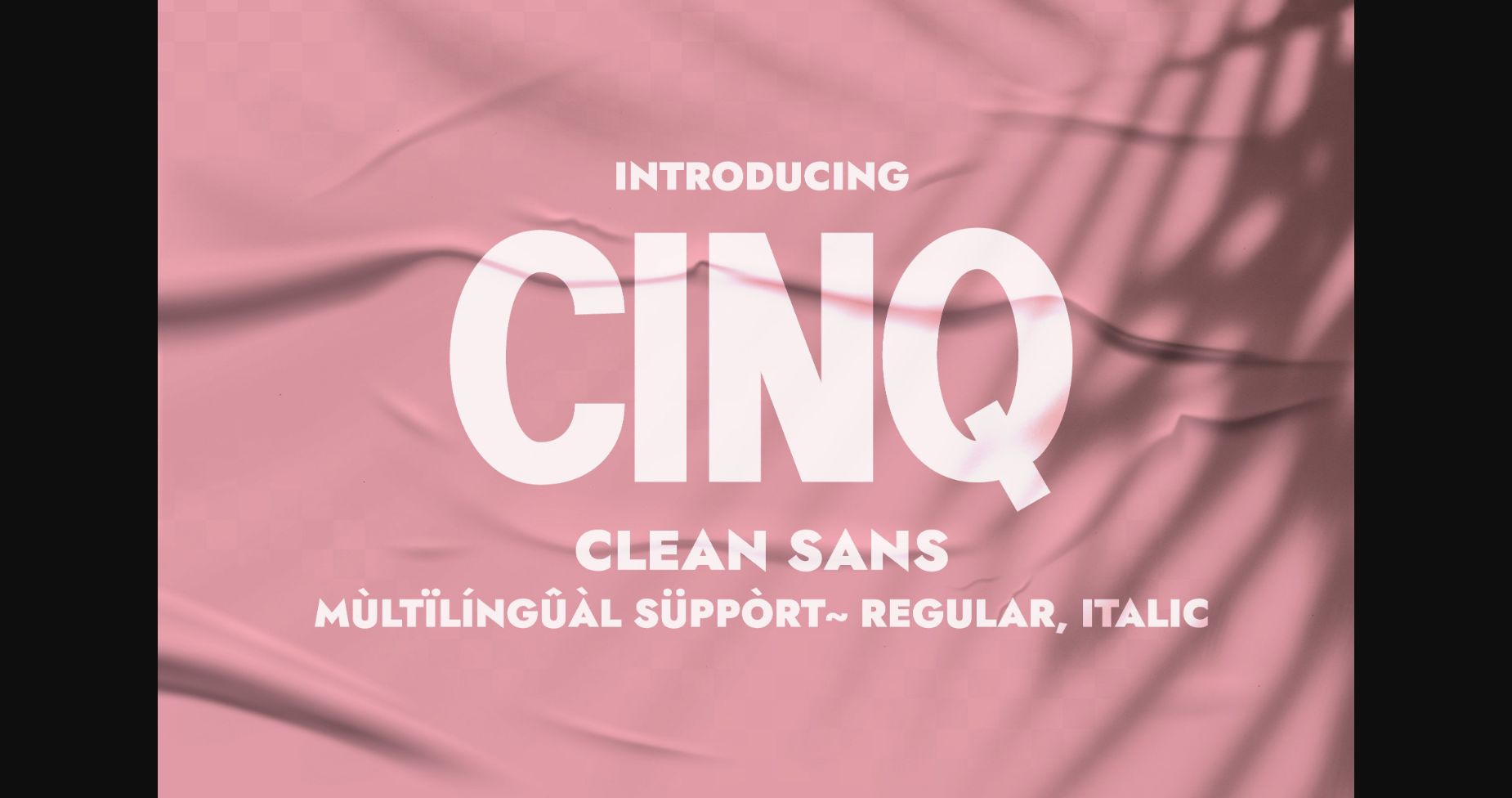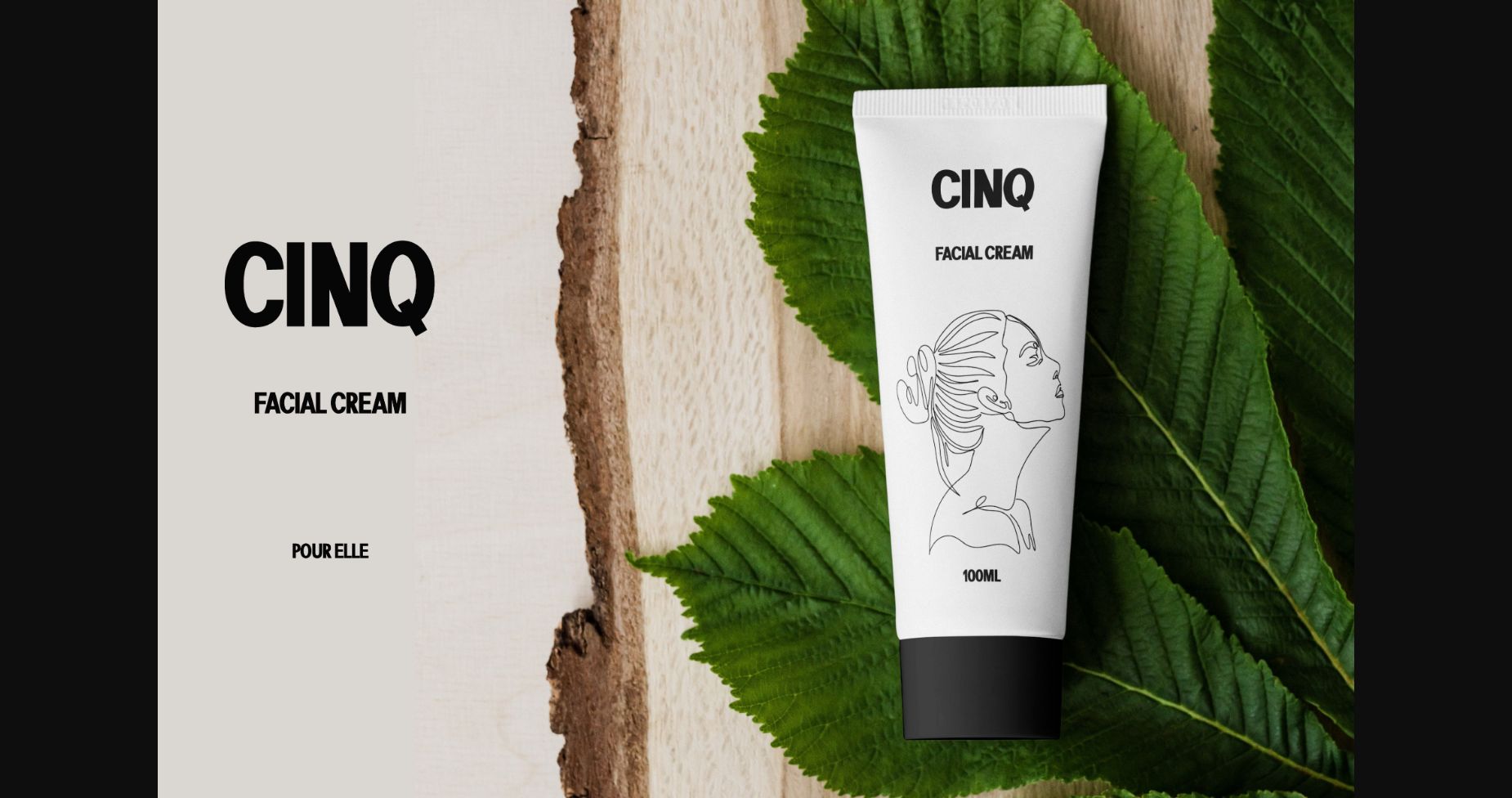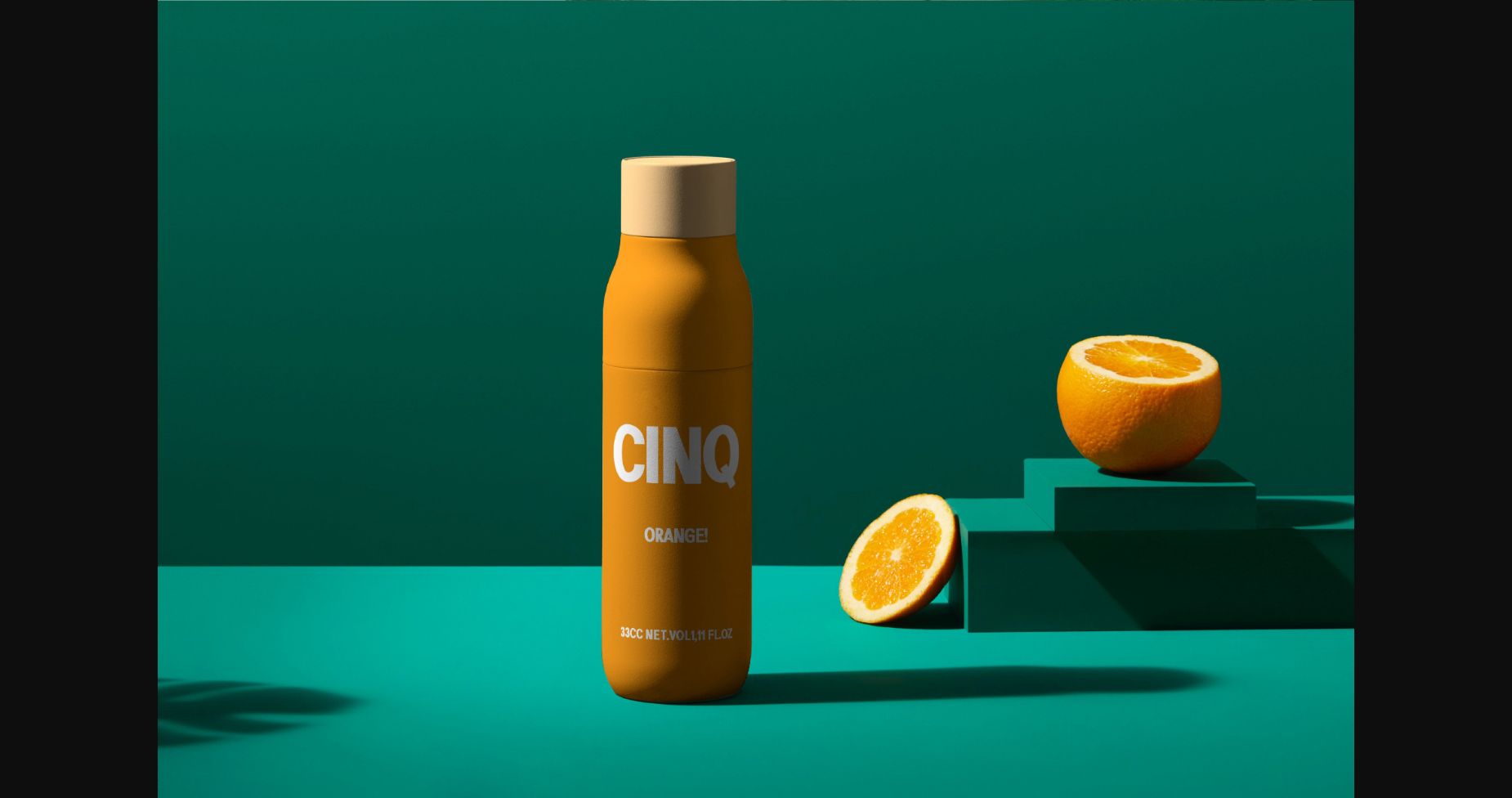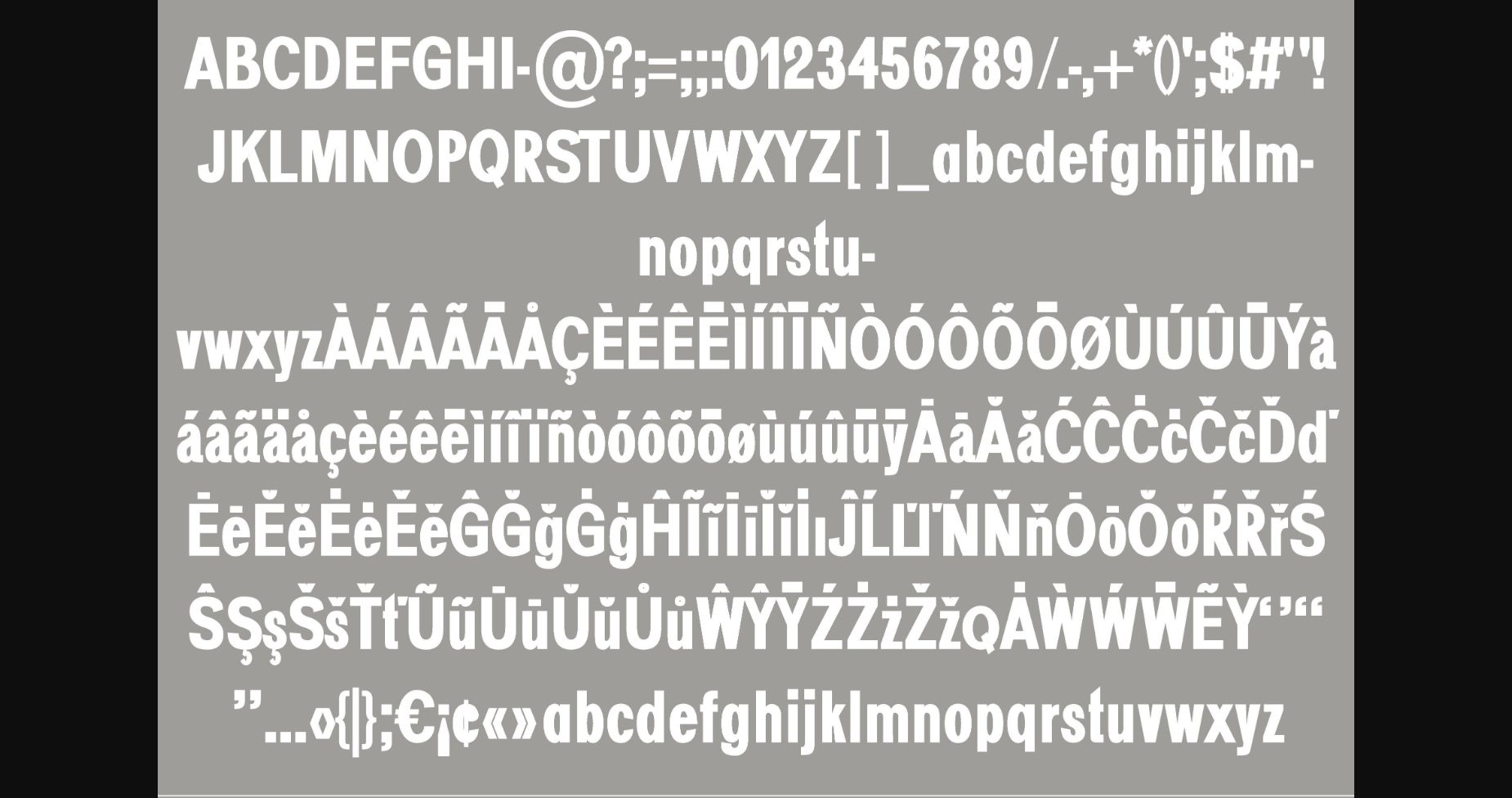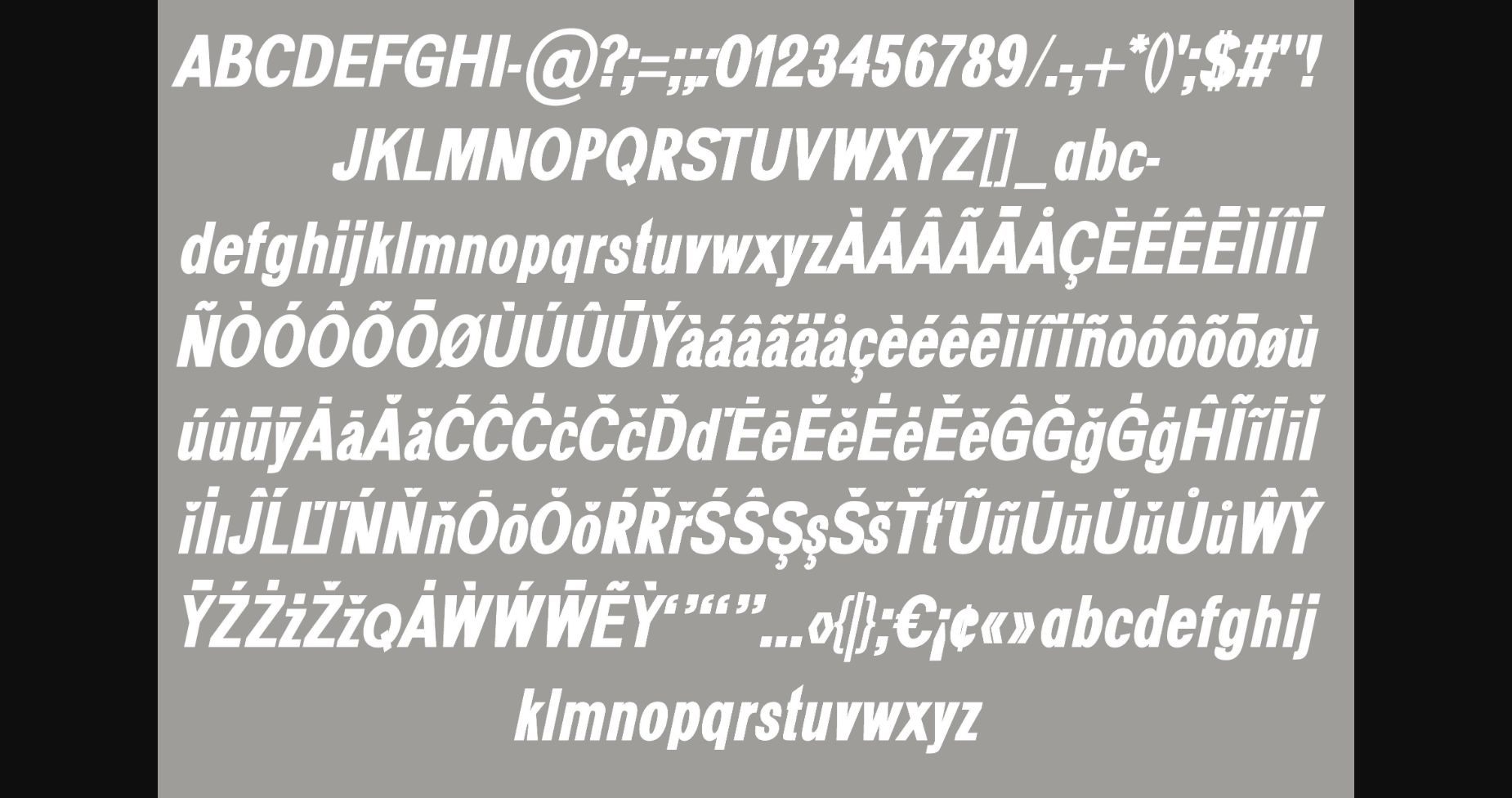
About Cinq Font
Cinq is a tall condensed modern grotesque typeface, its sans serif aspect and little spacing renders it a vital choice when you want to add some huge impact on the eye and really draw attention. It is heavily inspired by swiss typeface rules. Use it confidently in your artwork so you can notice how it can be a game changer when you are designing some particular projects.